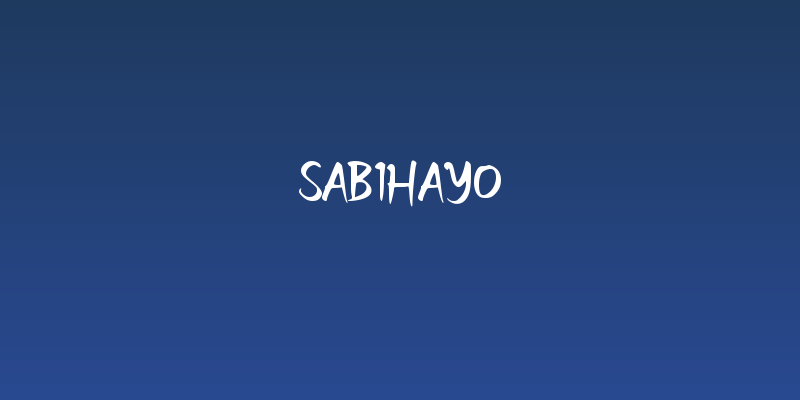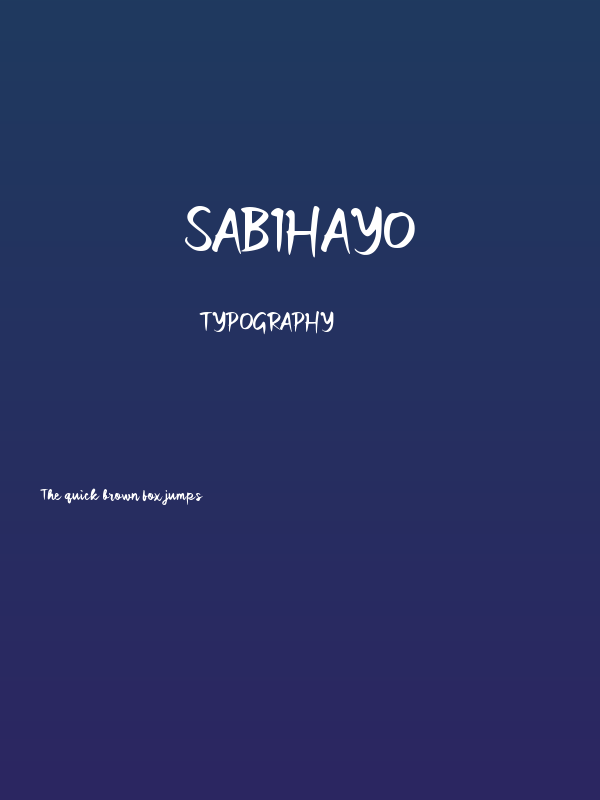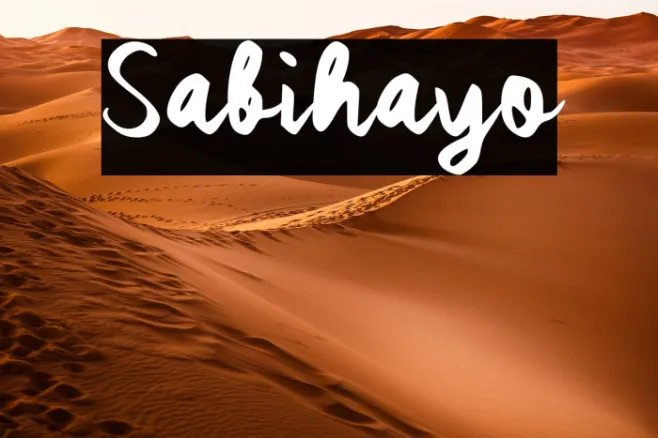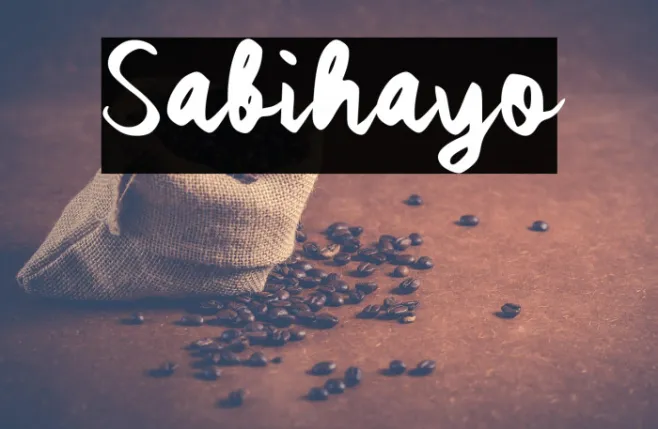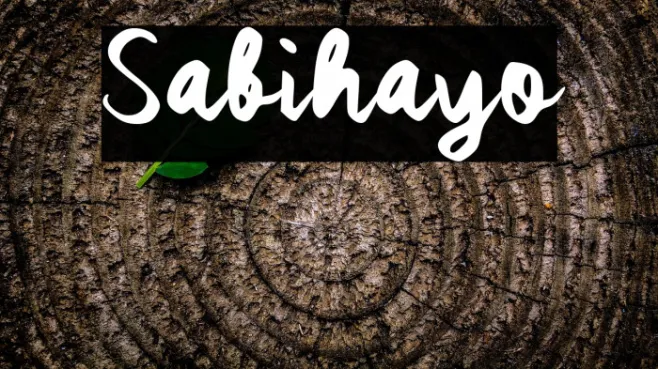
Sabihayo Font
Sabihayo Description
A playful, handwritten script font with a casual and friendly appearance, featuring slightly irregular strokes and a smooth flow.
| Overall Style | Casual, Friendly, Handwritten |